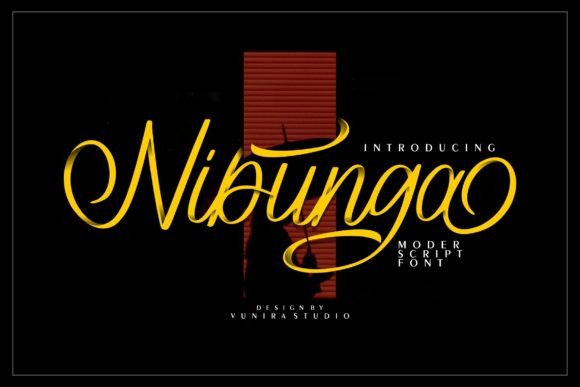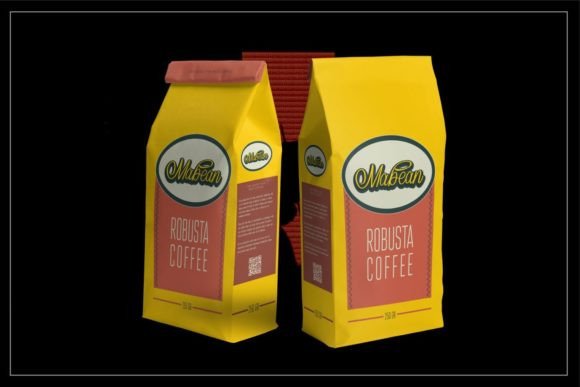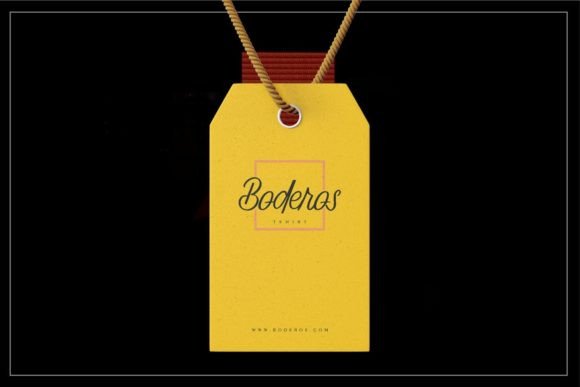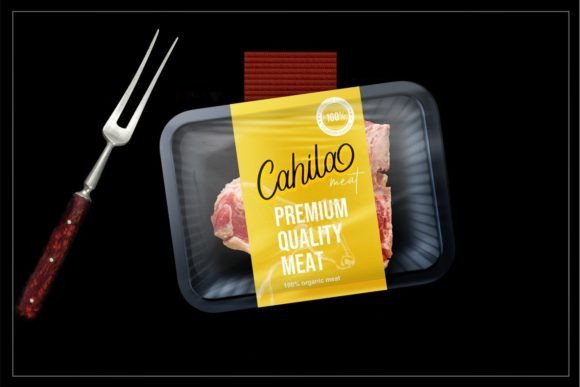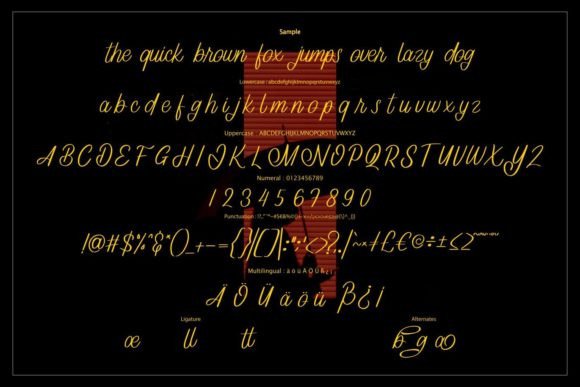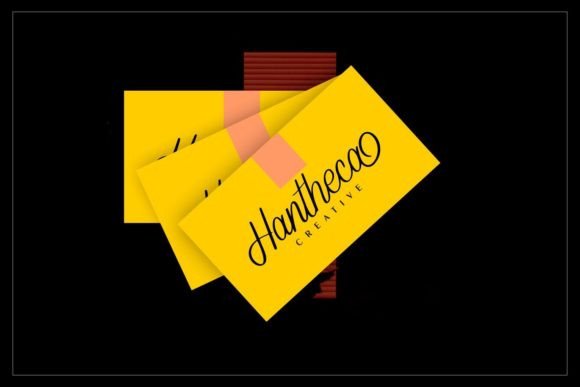
Nibunga Font
Discover the Stylish Elegance of Nibunga Font
Nibunga Font is a modern script typeface inspired by classic calligraphy, designed to bring a fresh and elegant look to your creative work. With its smooth, flowing lines and balanced structure, this font adds sophistication and charm to any project. Whether you’re working on wedding invitations, business branding, or social media graphics, Nibunga Font offers a refined, handcrafted feel that enhances your design.
Its contemporary style makes it versatile for both print and digital projects, allowing you to maintain consistent elegance across all platforms.
Wide Range of Creative Applications
Nibunga Font fits beautifully into many design contexts. It works well for:
• Wedding and event invitations
• Business logos and branding
• Product packaging and labels
• Posters, flyers, and promotional materials
• Social media content and inspirational quotes
• Business cards and stationery
This script font’s graceful curves and clear readability make it perfect for formal and casual designs alike.
Easy Access and Customization
The font’s kerning and letter spacing are carefully optimized to ensure legibility at various sizes, making it suitable for both headlines and smaller text blocks.
Why Choose Nibunga Font?
Designers and creatives appreciate Nibunga Font for its blend of modern aesthetics and traditional handwritten elegance. It adds a unique personality to your projects, helping your work stand out with a handcrafted look and feel.
Whether you’re a professional designer or a DIY enthusiast, Nibunga Font offers a stylish and flexible option for your typography needs.